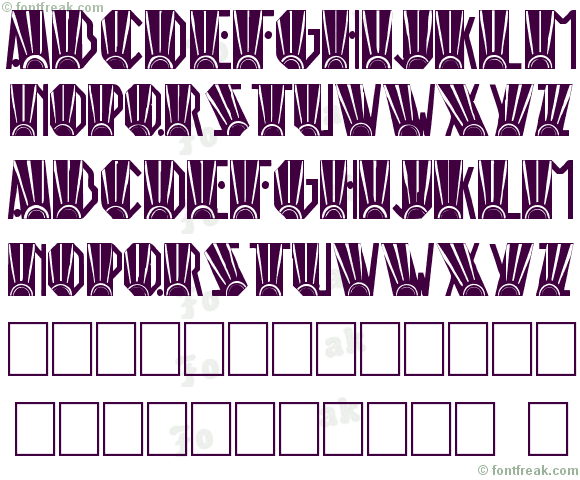
Rio Art Deco
About Rio Art Deco
The Rio Art Deco font by Renn Crump, released in April 2002, is a striking display typeface that captures the essence of the Art Deco movement. This font embodies a unique blend of geometric shapes and stylish elegance, making it a standout choice for various design projects. With its bold stroke weight and high contrast, Rio Art Deco offers an eye-catching visual appeal that is both modern and nostalgic. The font features intricate decorative elements, including stylized curves and angular lines, which enhance its distinctive character and contribute to its vintage charm.
Ideal for a variety of applications, the Rio Art Deco font is perfect for wedding invitations, where its elegance can elevate the overall aesthetic. It also shines in movie posters, where its dramatic flair can attract attention and convey a sense of glamour. Restaurant menus can benefit from this font, providing a sophisticated and artistic touch that complements upscale dining experiences. Small business owners looking to create a memorable brand identity can leverage this font in logos and promotional materials, while content creators will find it useful for eye-catching headlines and social media graphics.
What sets the Rio Art Deco font apart is its ability to blend vintage elegance with contemporary design sensibilities. This font not only enhances visual communication but also evokes a sense of nostalgia, making it a timeless addition to any creative project. Don’t miss the chance to explore the Rio Art Deco font free download and elevate your designs with its stunning aesthetic.